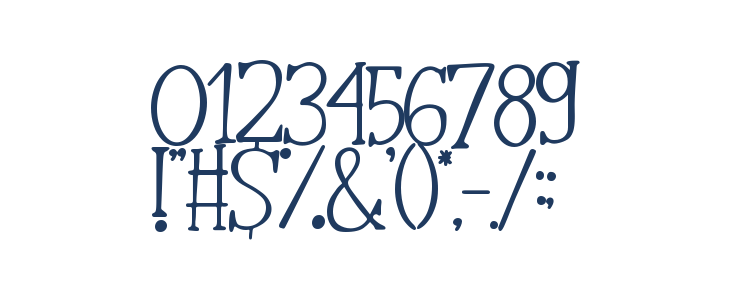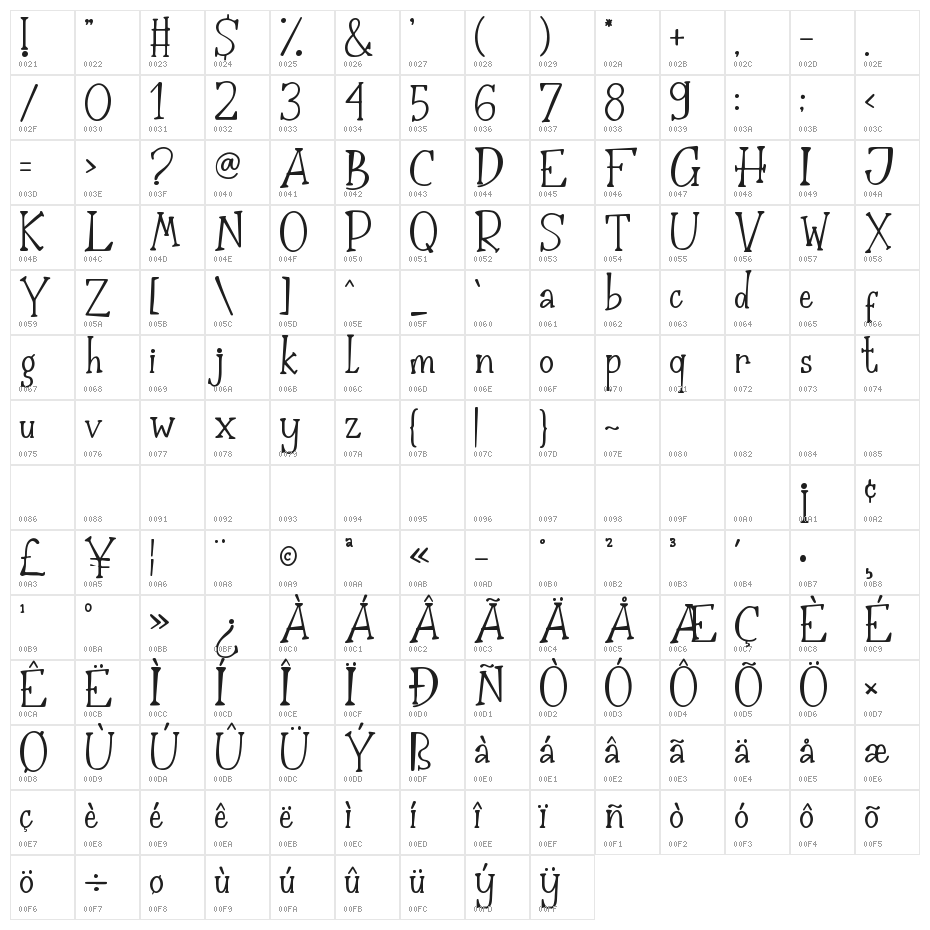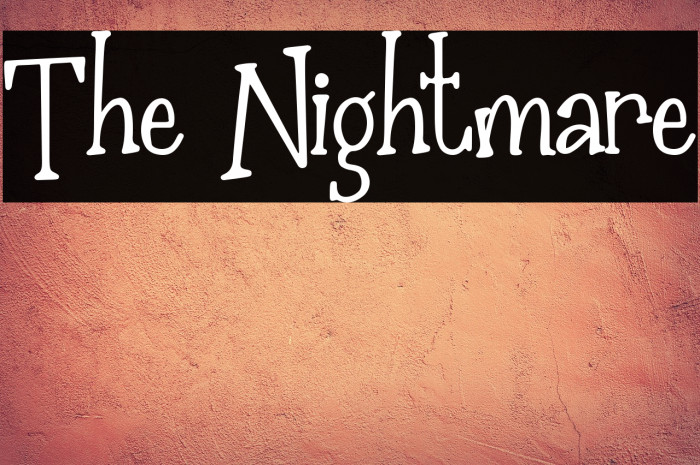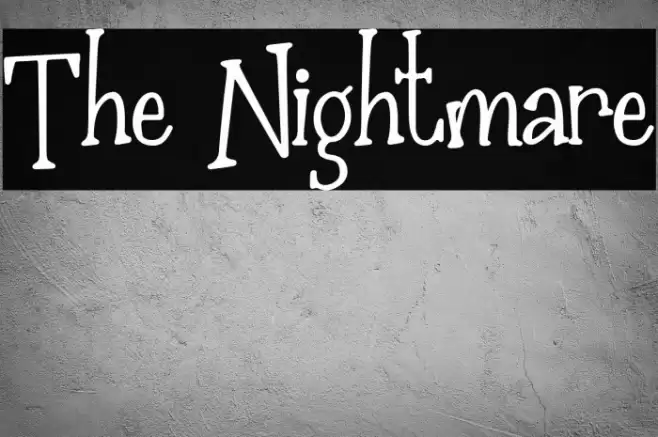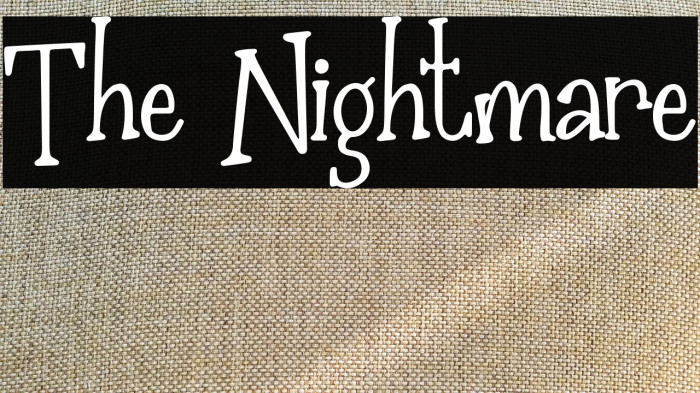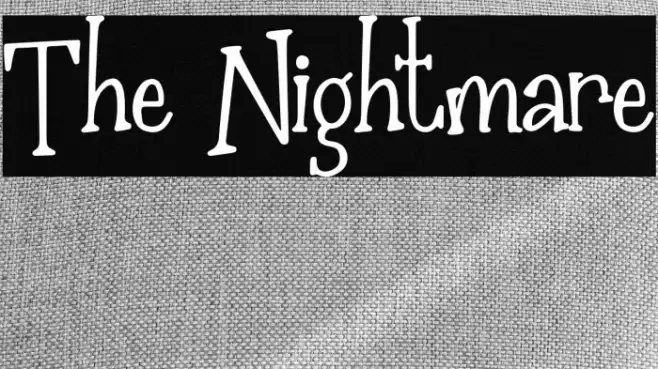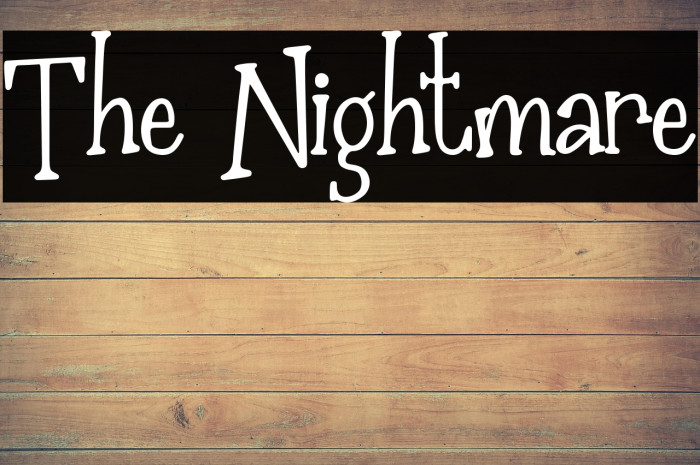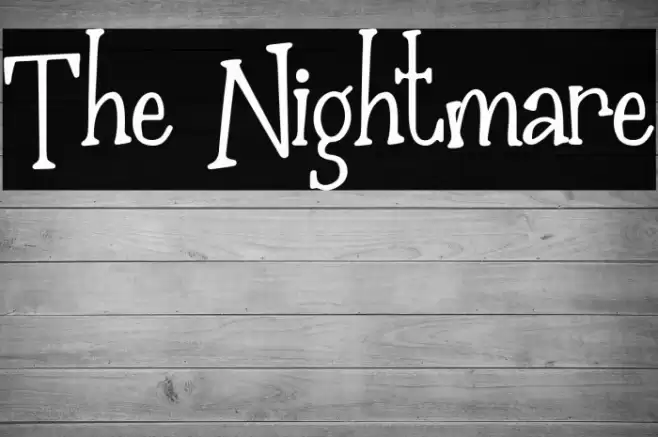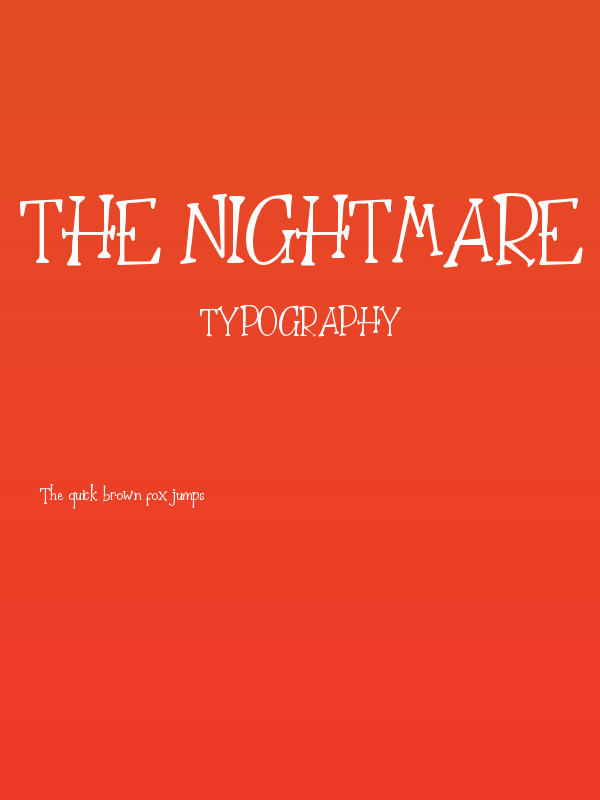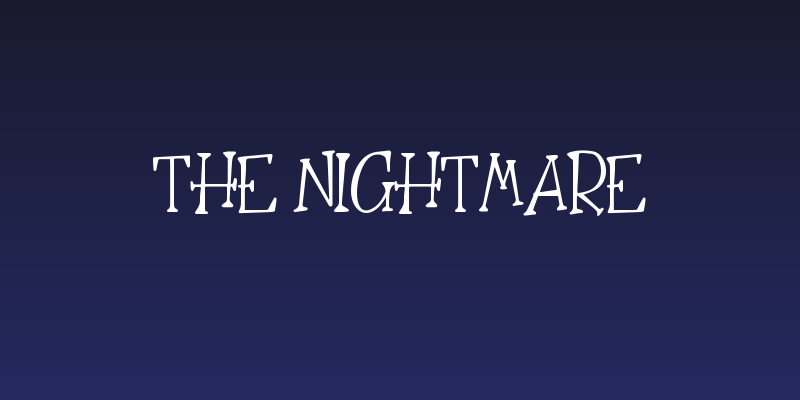
The Nightmare Font
The Nightmare Description
This font features a whimsical and slightly eerie design, characterized by its uneven strokes and playful curves. The uppercase letters have a tall and narrow appearance, with some letters like 'R' and 'K' having exaggerated, elongated legs. The lowercase letters maintain a consistent style, with a mix of rounded and angular elements that add to its quirky charm. The numbers are similarly styled, with a playful twist that makes them stand out. Special characters are creatively designed, adding to the font's unique personality. Overall, this font conveys a sense of fun with a hint of mystery, making it suitable for creative and unconventional projects.